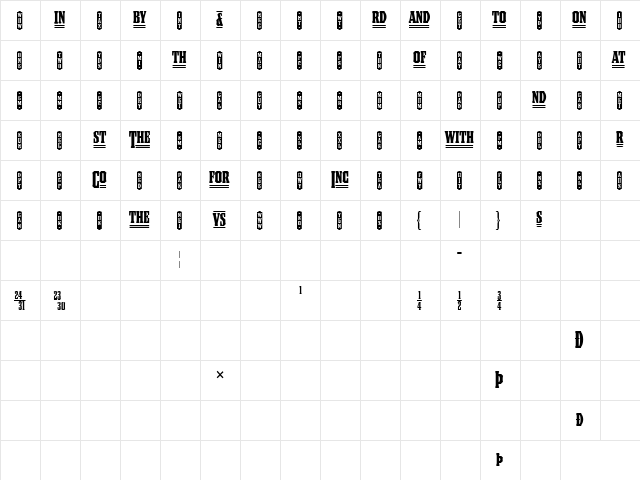
CouncilWordLogosTwo Regular
Design Context for CouncilWordLogosTwo Typeface
CouncilWordLogosTwo is a composed and adaptable typeface that performs quietly and consistently across a wide range of design contexts.